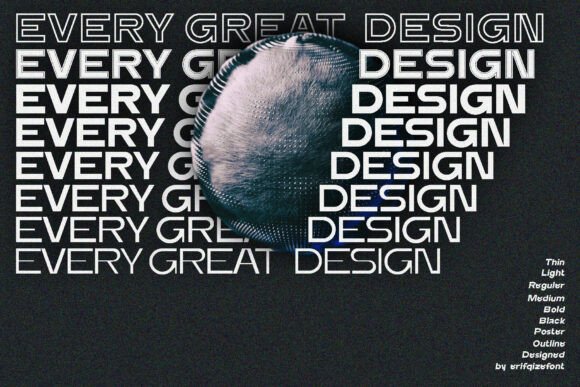
Introducing ERF Neot: The Modern Geometric Sans Serif Font Family
In the ever-evolving world of typography, the right font can make all the difference in the success of a design project. For those seeking a modern, versatile, and impactful typeface, ERF Neot emerges as an exceptional choice. This modern geometric sans serif font family masterfully blends bold structure with futuristic minimalism, making it ideal for a wide array of design applications.
Design Characteristics of ERF Neot
ERF Neot is characterized by its clean lines and precise curves, which contribute to its striking yet versatile aesthetic. The font’s geometric foundation provides a sense of stability and reliability, while its minimalist approach ensures a sleek and contemporary look. This combination makes ERF Neot perfect for designers aiming to create a strong visual impact without compromising on elegance or readability.
Key Features of ERF Neot
- 16 Distinct Styles: ERF Neot offers a comprehensive range of 16 styles, from light to bold, allowing designers to choose the perfect weight for their project. This extensive flexibility makes it suitable for various design needs, whether it’s for subtle text or attention-grabbing headlines.
- Multilingual Support: In today’s globalized world, a font’s ability to support multiple languages is crucial. ERF Neot rises to the challenge with its excellent multilingual support, ensuring legibility and clarity across a wide range of languages.
- Versatility: The font’s versatility is one of its standout features. ERF Neot can seamlessly transition between different design contexts, including branding, editorial layouts, UI/UX interfaces, and creative projects. Its adaptability makes it an invaluable asset for designers working on diverse projects.
Applications of ERF Neot
The versatility of ERF Neot makes it an excellent choice for a multitude of design applications. Here are some areas where ERF Neot truly shines:
1. Branding
For brands aiming to establish a modern and professional identity, ERF Neot offers a clean and impactful aesthetic. Its range of weights allows for the creation of a cohesive brand language, from business cards to billboards.
2. Editorial Layouts
In editorial design, readability and style are paramount. ERF Neot’s precise curves and clean lines ensure that text is easy to read, while its geometric structure adds a touch of sophistication to any publication.
3. UI/UX Interfaces
For digital interfaces, a font must be both legible and aesthetically pleasing. ERF Neot’s modern look and excellent multilingual support make it an ideal choice for UI/UX design, enhancing user experience across various languages and platforms.
4. Creative Projects
ERF Neot’s bold structure and minimalist charm make it a fantastic choice for creative projects. Whether it’s for posters, flyers, or digital art, this font family adds a contemporary edge that can elevate any design.
Why Choose ERF Neot?
With so many font options available, what sets ERF Neot apart? Here are a few reasons why designers and brands might prefer ERF Neot:
1. Clarity and Legibility
ERF Neot’s design prioritizes clarity and legibility, making it suitable for both digital and print applications. Its geometric structure ensures that text remains clear, even at smaller sizes.
2. Versatility and Flexibility
The font’s 16 distinct styles and multilingual support provide designers with the flexibility to use ERF Neot across a wide range of projects and languages, saving time and resources.
3. Modern Aesthetic
ERF Neot’s modern geometric sans serif design offers a fresh alternative to traditional typefaces. Its minimalist approach and precise curves contribute to a sleek and contemporary look that can enhance any design.
4. Professional and Tech-Savvy
Whether aiming for a professional corporate identity or a sleek tech vibe, ERF Neot delivers. Its bold structure and clean lines make it perfect for brands looking to project a sense of innovation and reliability.
ERF Neot is more than just a font family; it’s a versatile design tool that can elevate a wide range of projects. Its modern geometric sans serif design, combined with its extensive flexibility and multilingual support, makes it an excellent choice for designers and brands worldwide. Whether you’re working on branding, editorial layouts, UI/UX interfaces, or creative projects, ERF Neot offers the clarity, impact, and style needed to make your design stand out.
Incorporating ERF Neot into your design workflow can significantly enhance the aesthetic and functionality of your projects. Its ability to blend bold structure with futuristic minimalism, along with its extensive range of styles and multilingual support, positions ERF Neot as a leading choice for modern design needs.